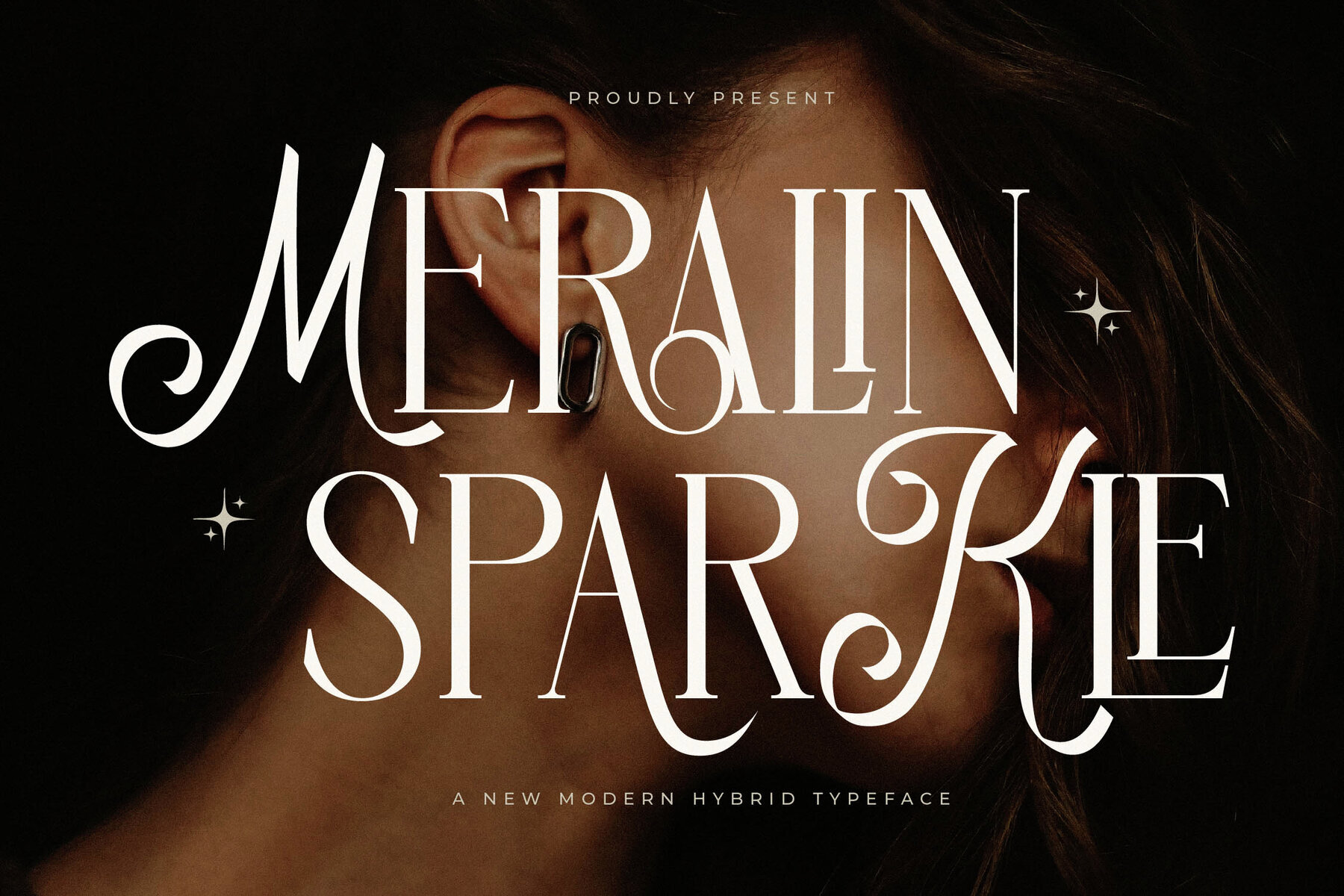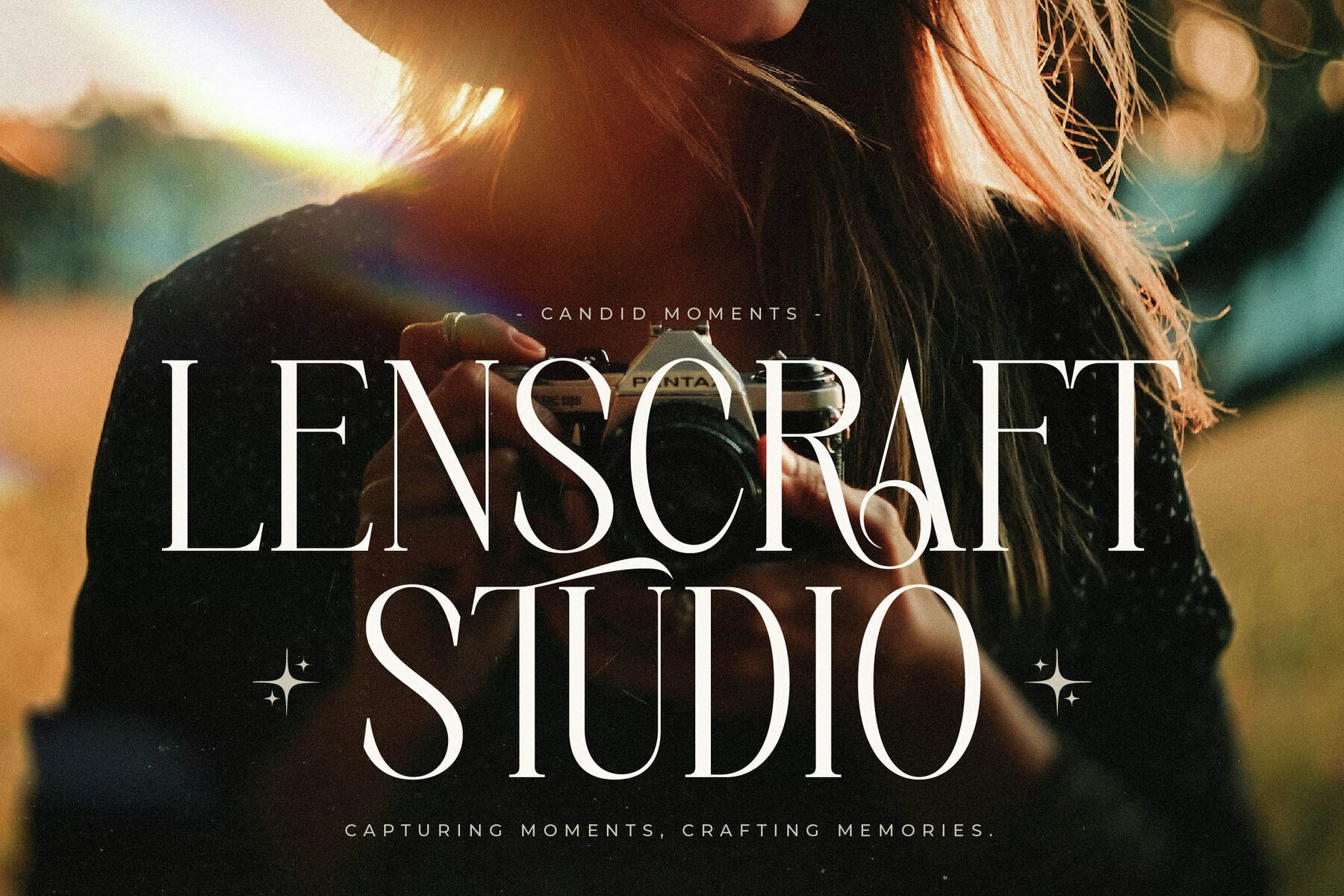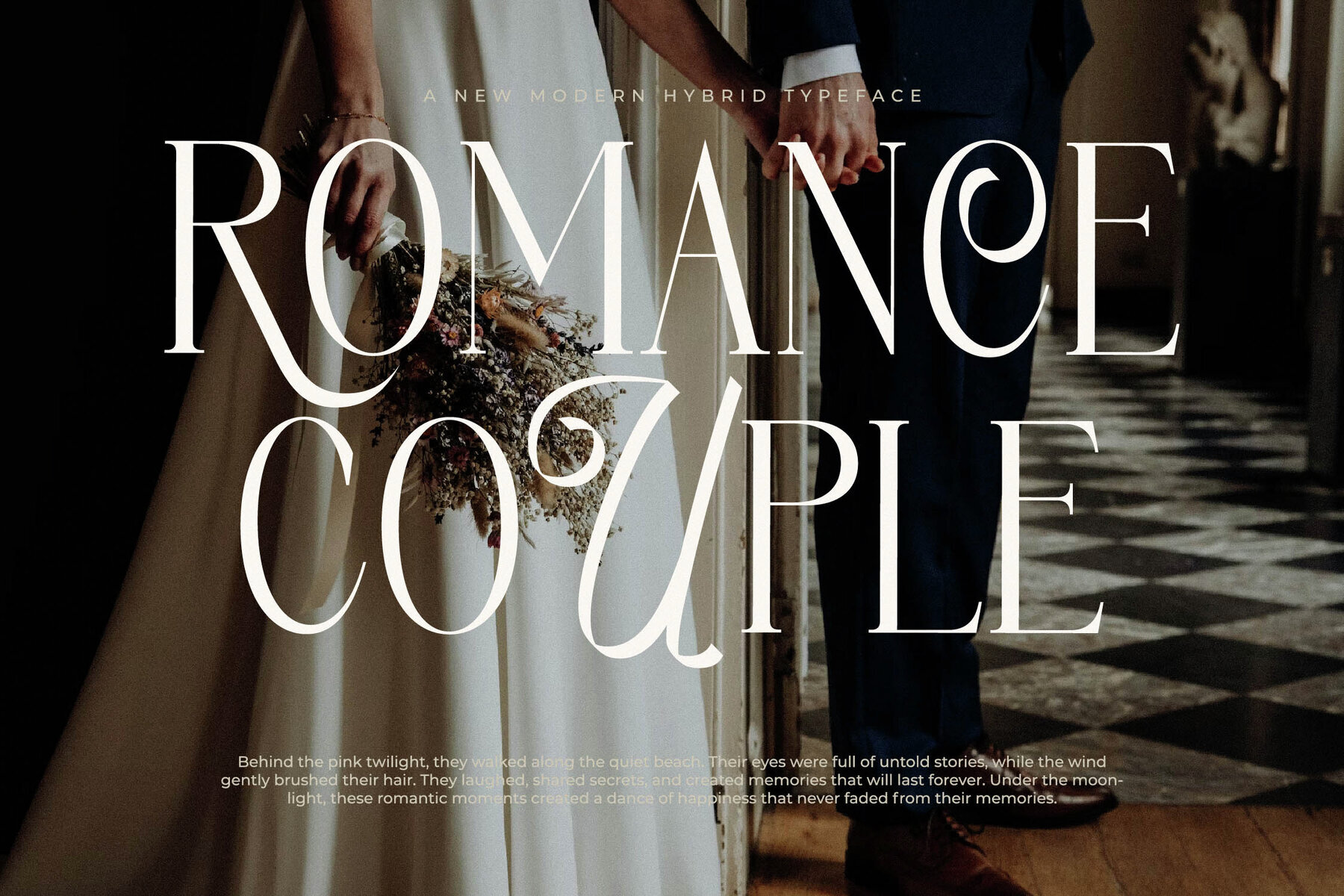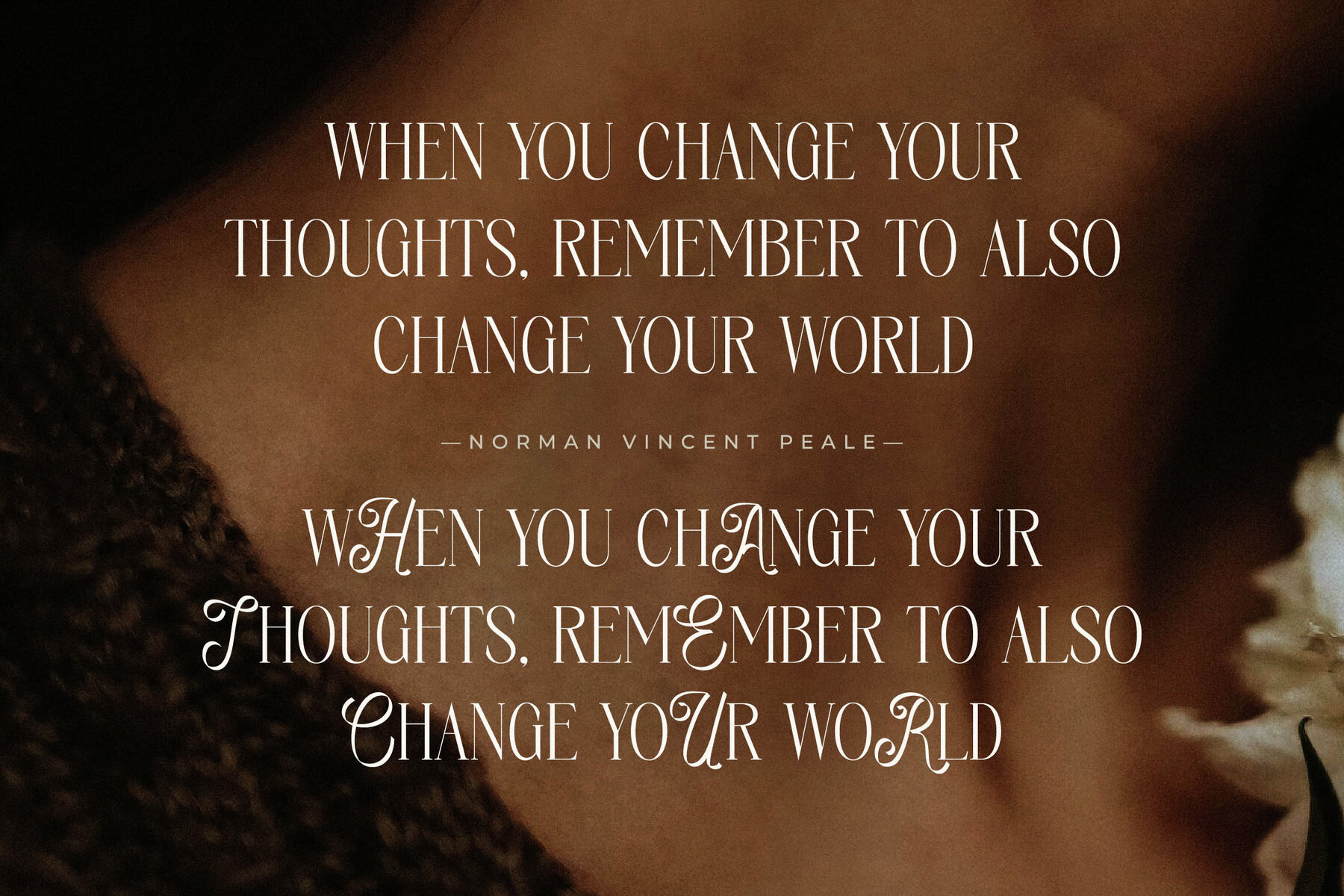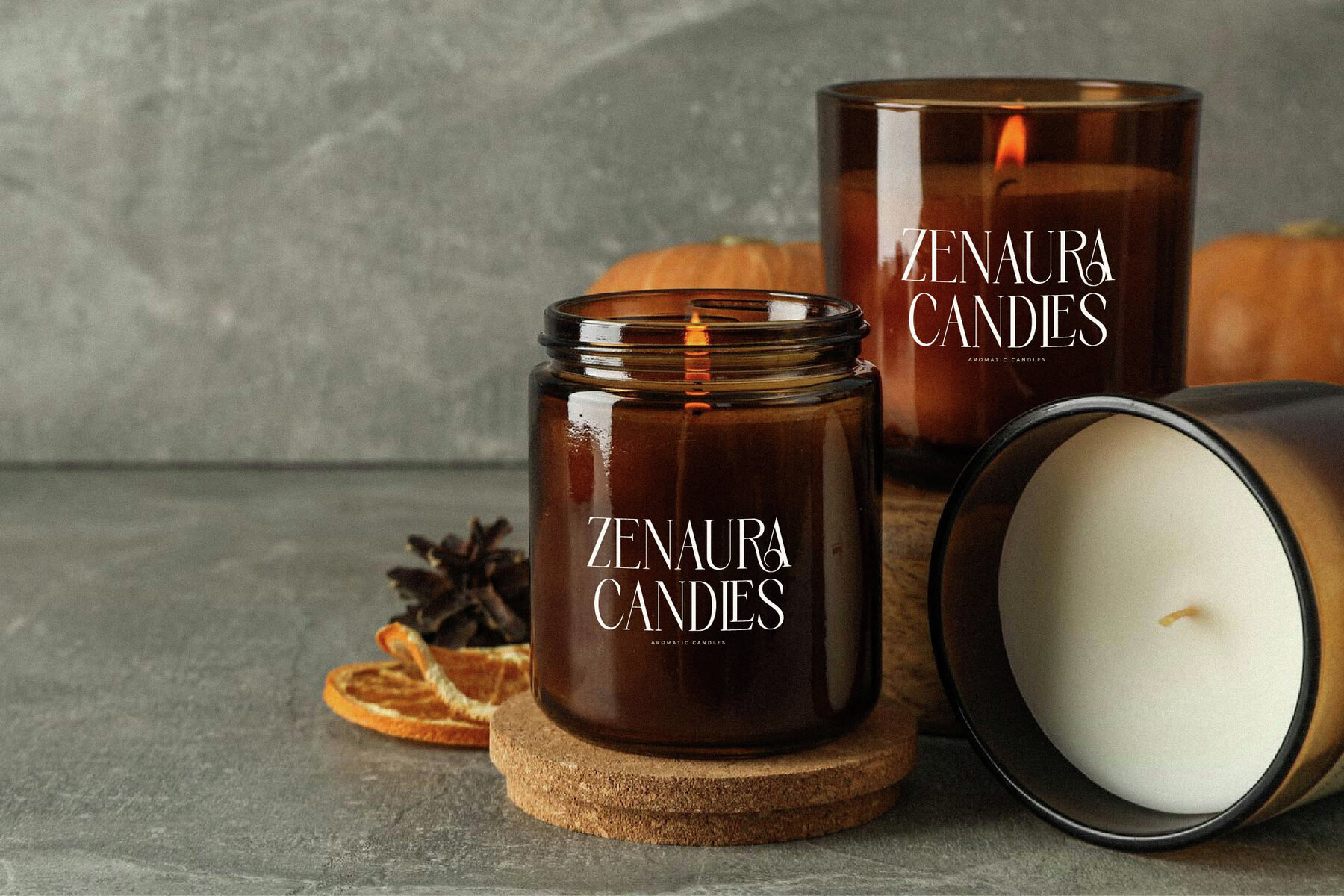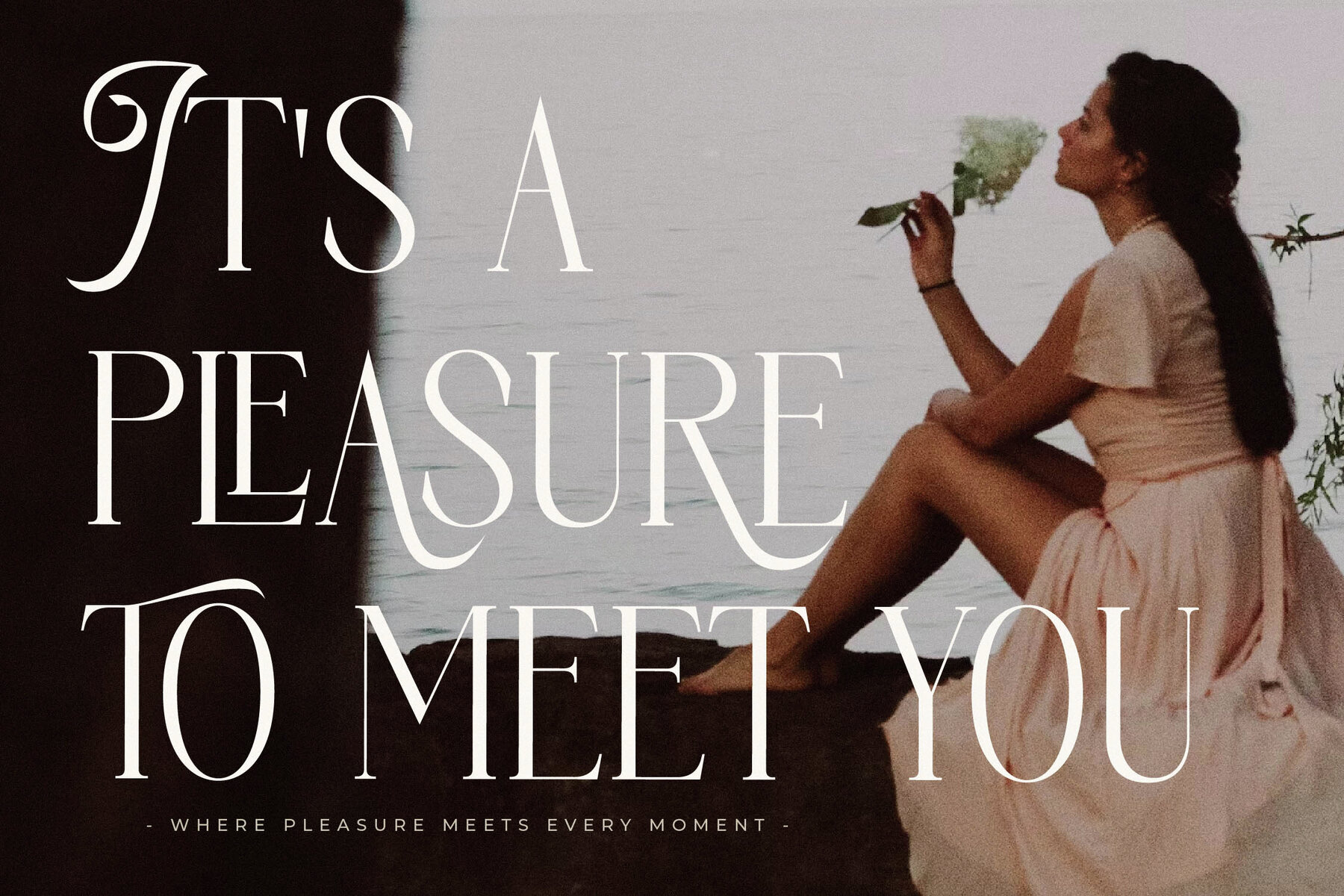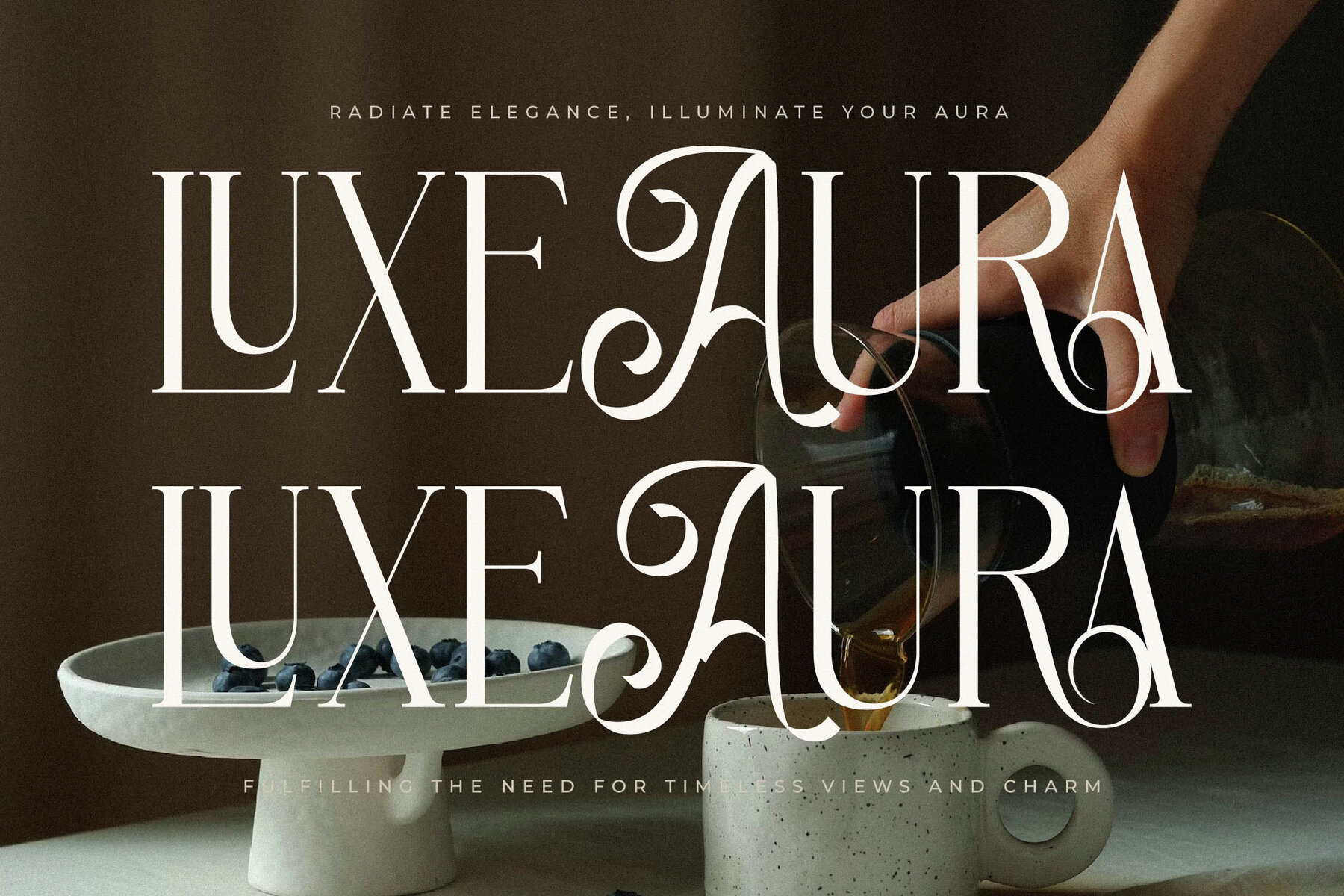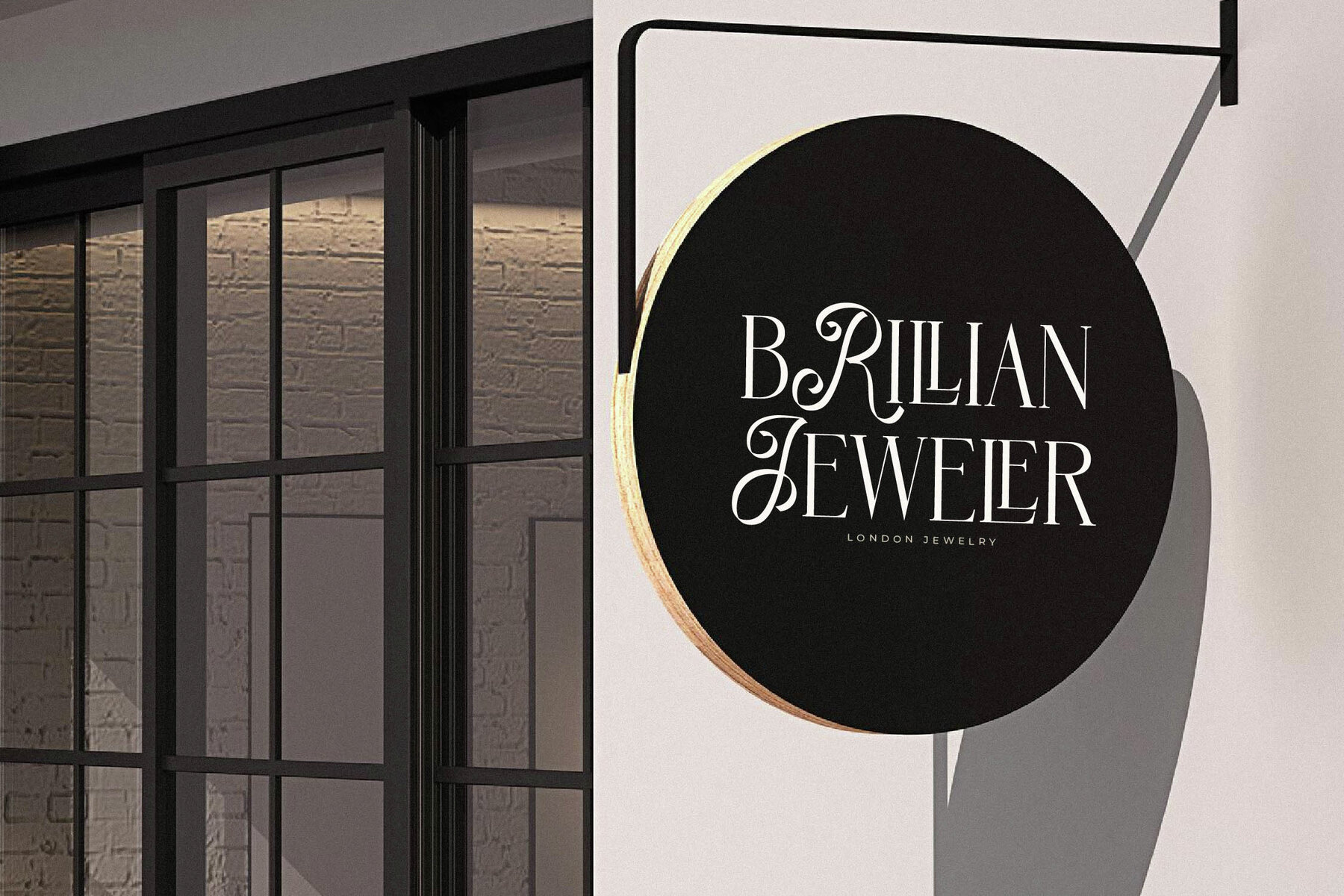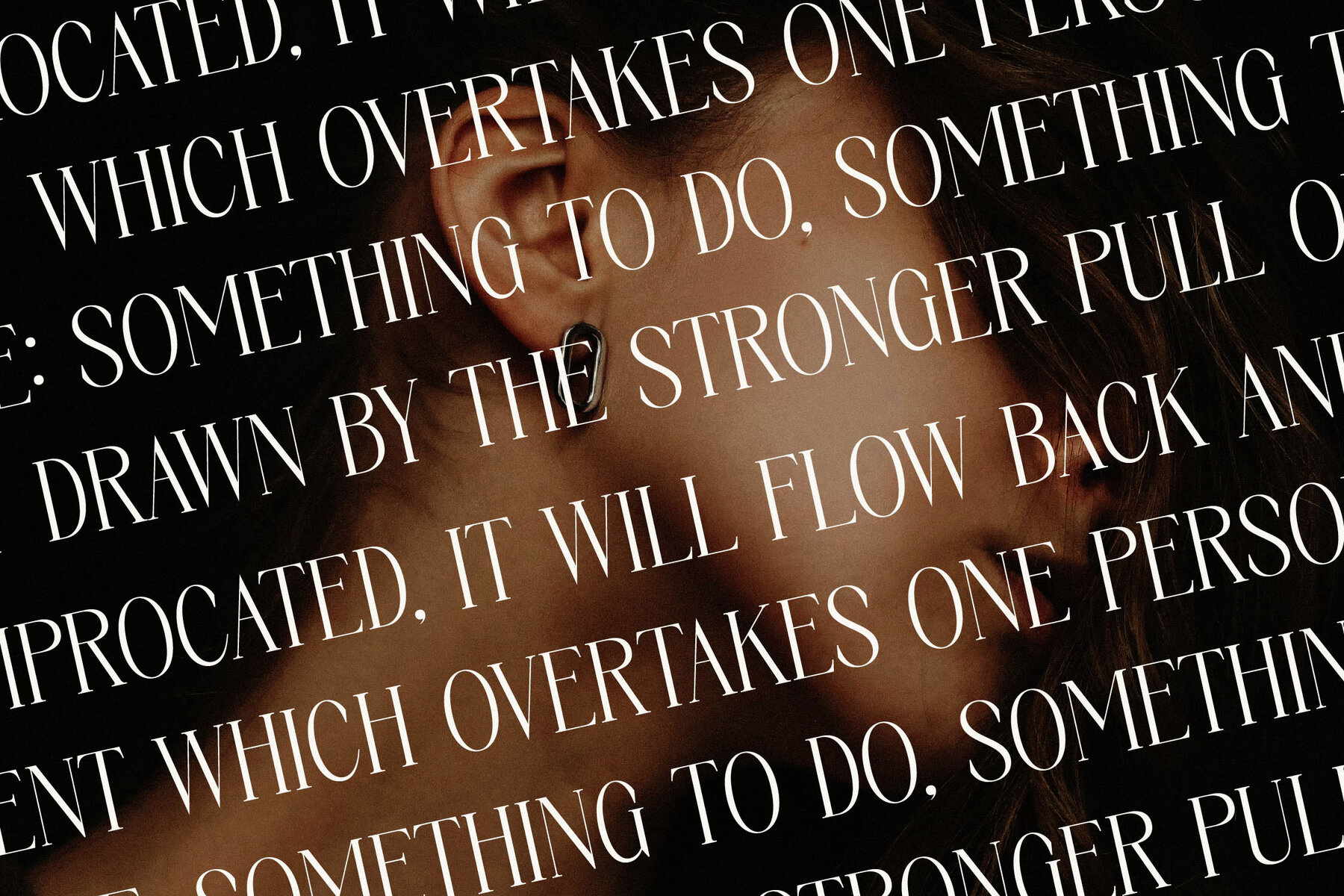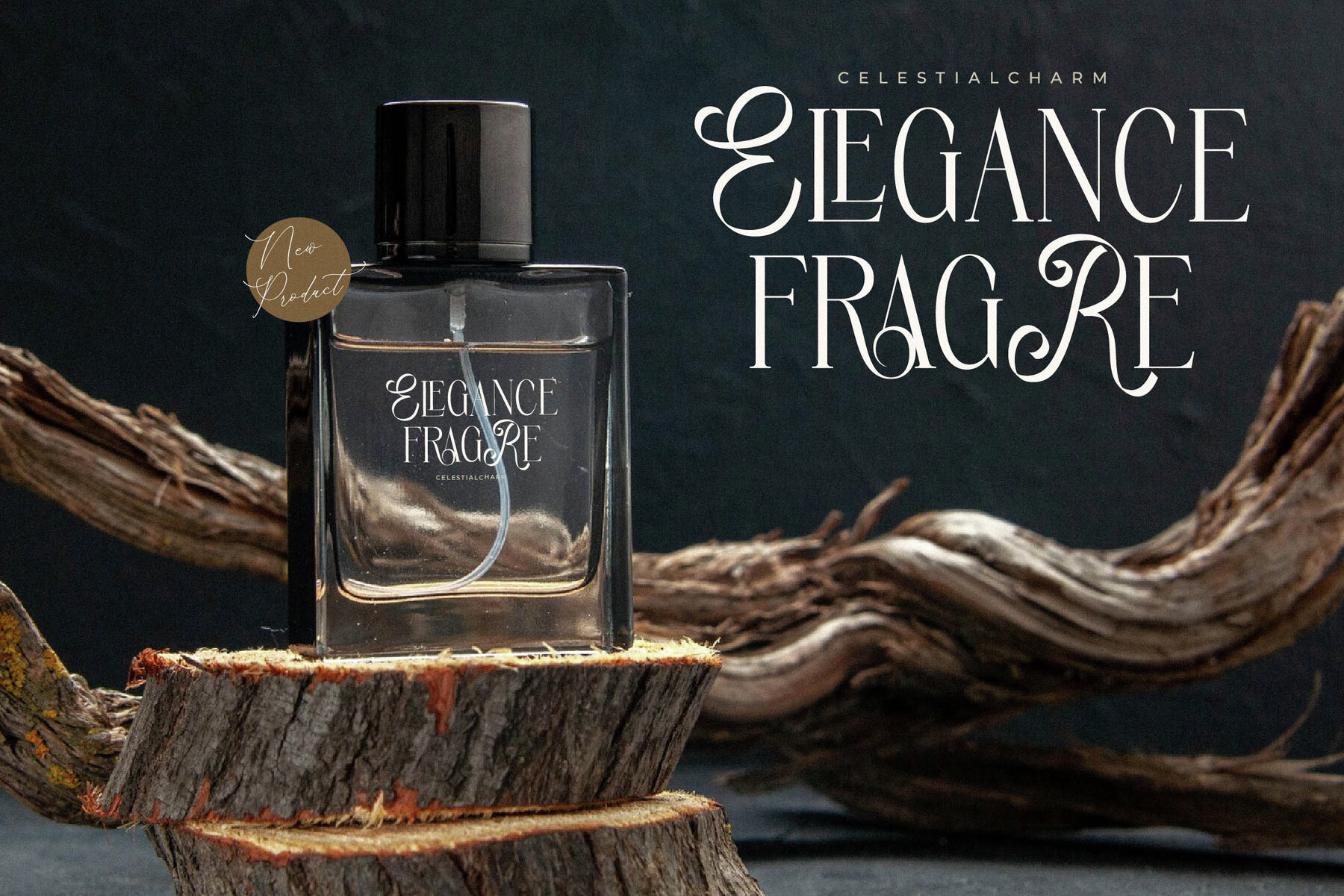
Meralin Sparkle Font
Meralin Sparkle from Storytype Studio combines the classic elegance of serif fonts with a modern twist. Its unique style and versatile look make it the ideal choice for a luxury logo, captivating titles for books and movies, fashion brands, and more. This typeface effortlessly adds sophistication to any project.Meralin Sparkle Typeface